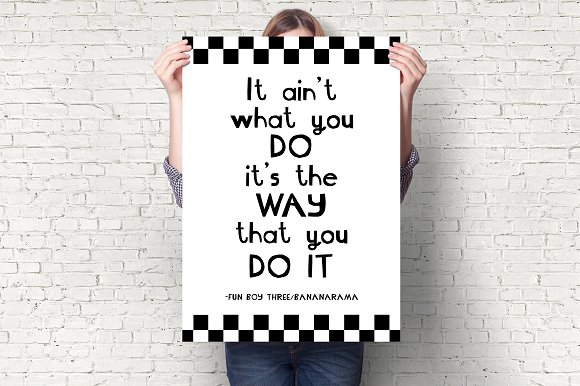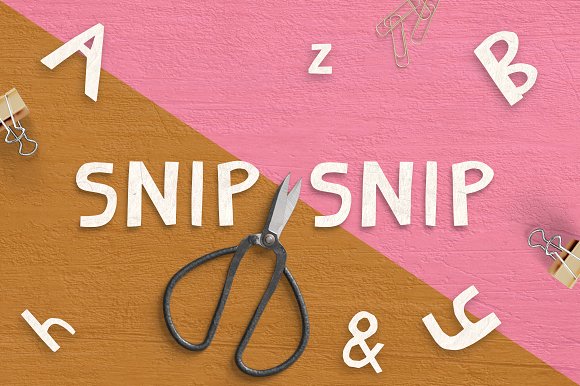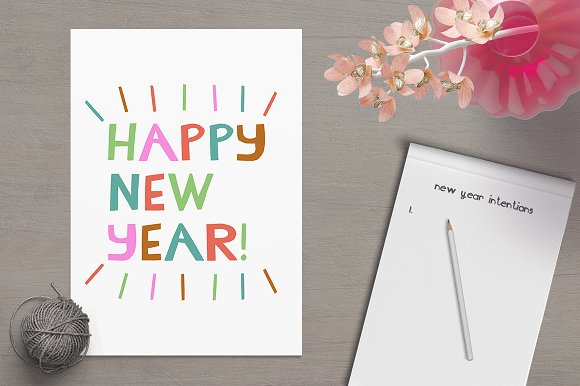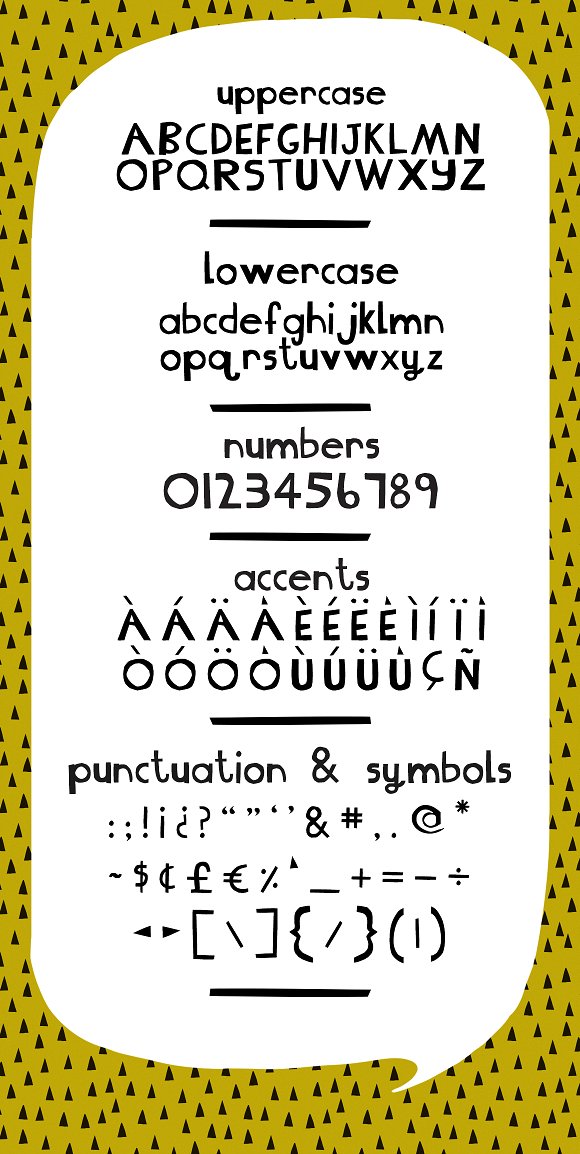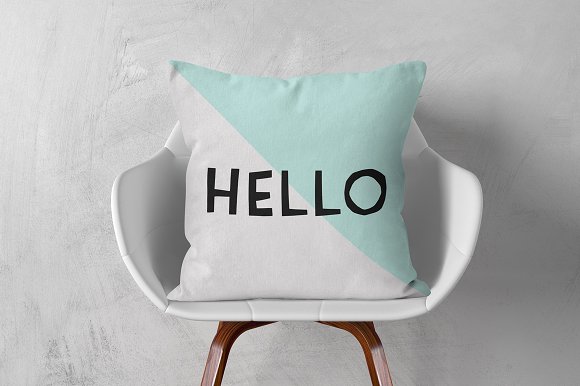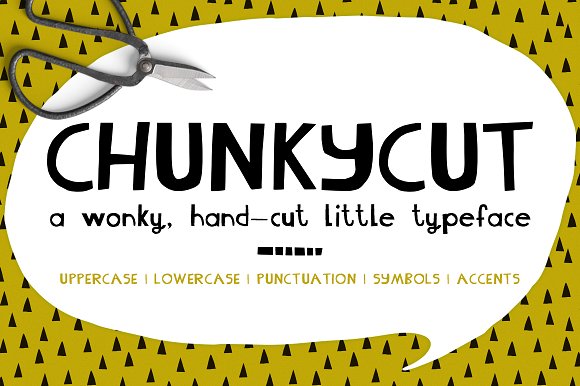
ChunkyCut Font
Hello! This is ChunkyCut, my newest typeface.
This typeface is based on my original, fun hand lettering which I created for my own work and have since used in numerous projects. I decided to turn it into a typeface so that I could make my work flow a lot easier. And now I’m making it available to you. I hope you like it!
ChunkyCut is a little bit whoa! and a little bit wonky. With lots of perfect imperfections, this new typeface was created by hand with lots of scissors snipping paper action.